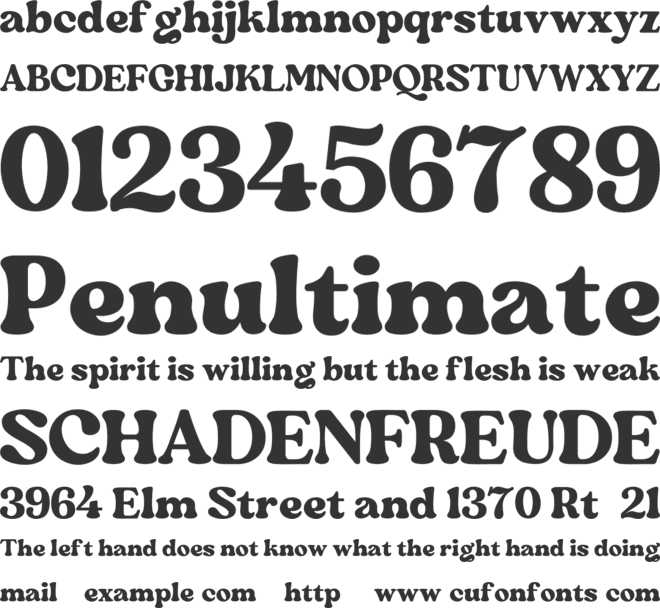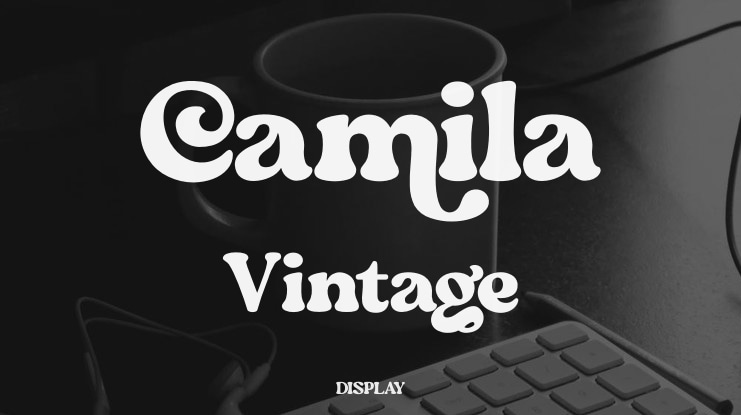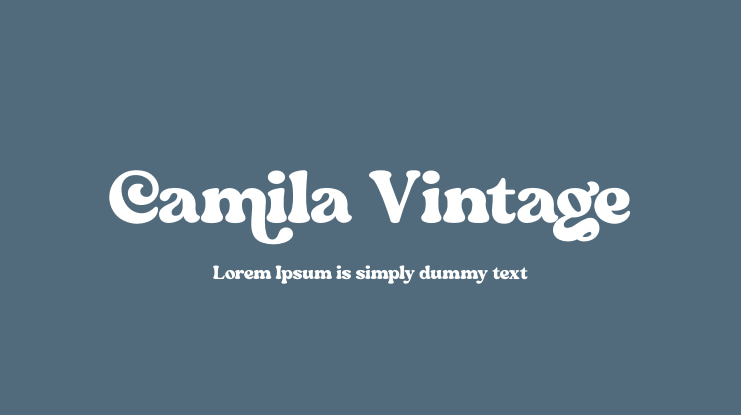
Camila Vintage Font
Introducing Camila Vintage, a sophisticated and chic retro serif font that offers a wide selection of alternative styles through its OpenType features. This font is designed to elevate and complement any design project you adore. With a comprehensive range of uppercase and lowercase letters, numbers, punctuation marks, and multilingual symbols, Camila Vintage is versatile and adaptable.
Ideal for logos, headlines, signage, and other formal applications such as invitations, labels, magazines, books, greeting cards, packaging, fashion, makeup, stationery, novels, and advertising materials, this font exudes elegance and class.